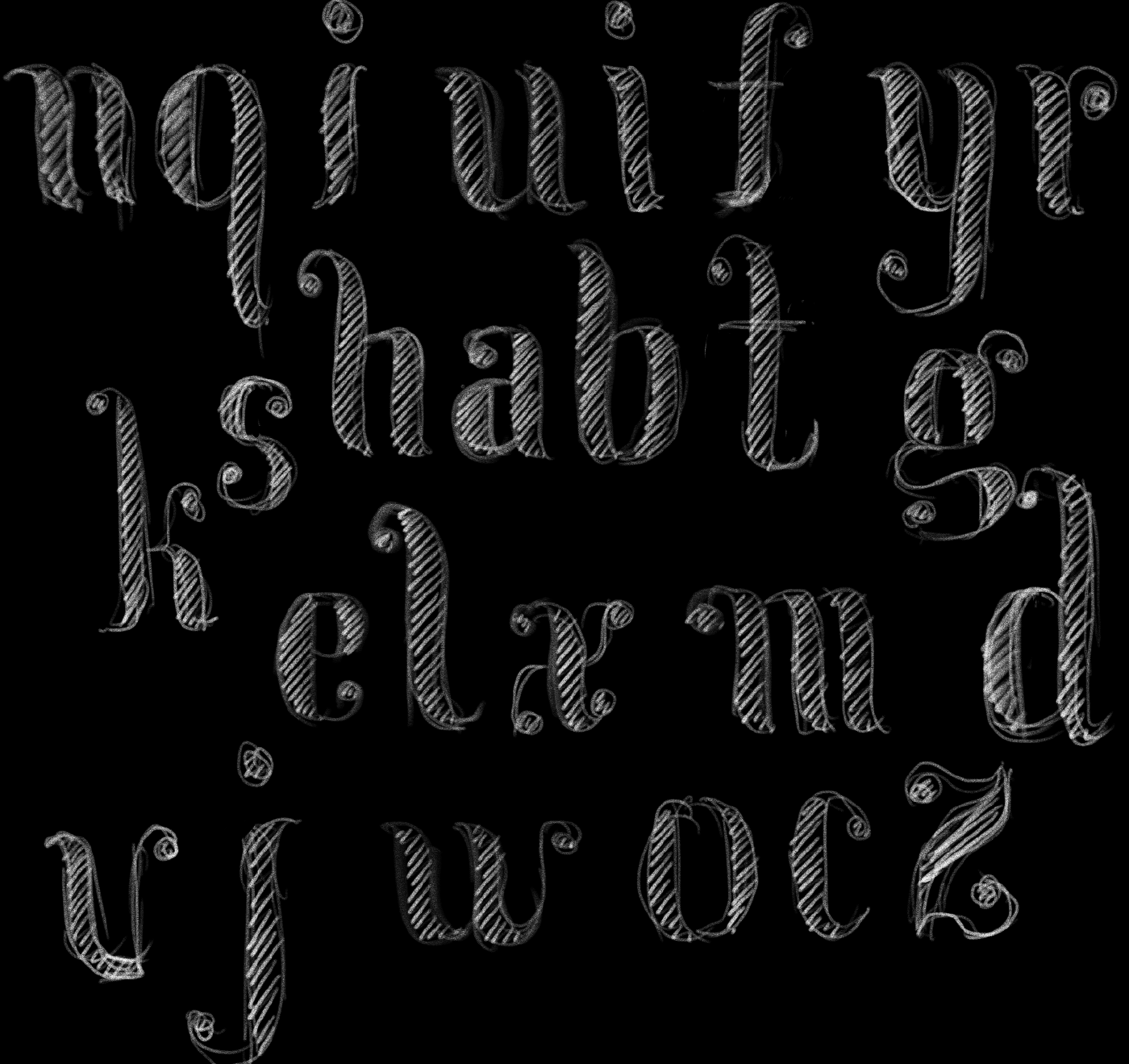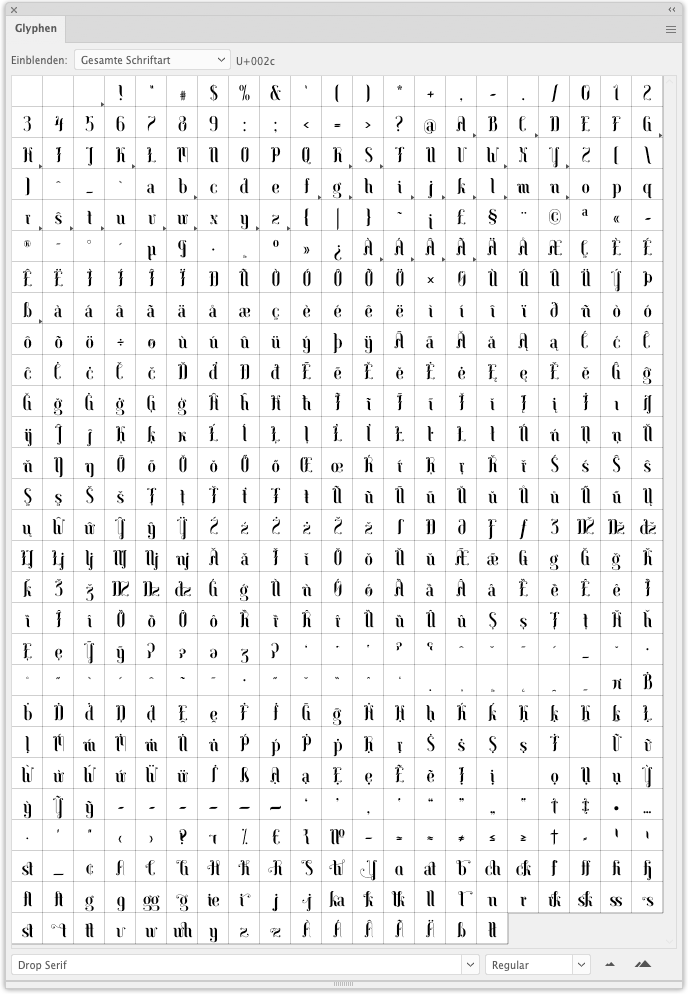
High contrast latin serif font, suitable for headlines and logos
Support for multiple languages with glyphs and diacritic marks
Alternative glyphs, ligatures, symbols and punctuation marks
Glyphs panel Version 1.9
Version 1.8 – now 517 glyphs
Version 1.6 – now 467 glyphs
Version 1.5 – now 411 glyphs
Version 1.4 – now 375 glyphs
Version 1.3 – now 339 glyphs
Version 1.2 – now 324 glyphs
Version 1.1 – 30 additional glyphs)